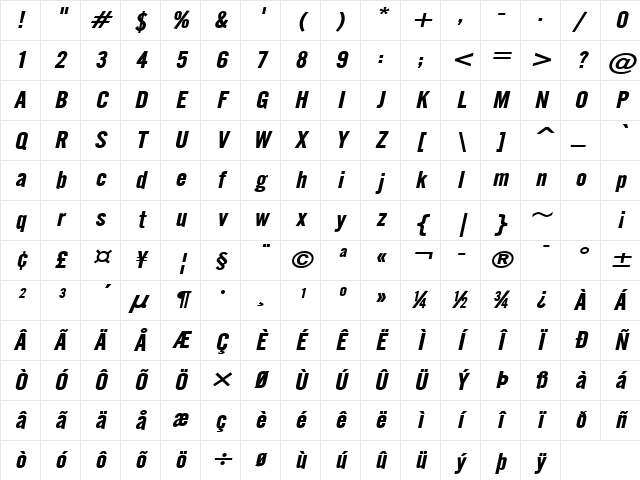
English Gothic-Extended Bold Italic
English Gothic-Extended Family
Complete English Gothic-Extended Bold Italic glyph index. Displaying only characters natively supported by English Gothic-Extended Bold Italic font.
Design Context for English Gothic-Extended
English Gothic-Extended takes a clean, functional approach - its unadorned letterforms prioritise legibility and work reliably across screen and print environments. The slanted form adds forward momentum and visual energy. Its bold stroke weight gives it real presence on the page.
Font Pairing: Use English Gothic-Extended for headlines alongside a lighter-weight sans or serif for body copy to establish clear visual hierarchy.
Pro Tip: Use English Gothic-Extended for UI labels, navigation, and short-form body copy where clean legibility is the priority.